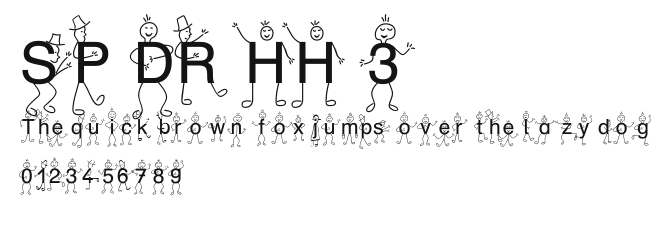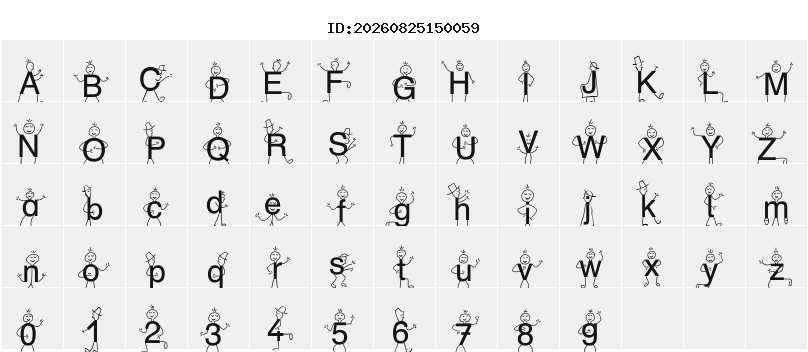
• Font Name: SP DR HH 3
• Full Font Name: SP DR HH 3
About SP DR HH 3.ttf
SP DR HH 3.ttf is a modern, elegant sans-serif font designed for ultimate readability and visual harmony. Perfect for branding, headlines, web design, and print materials.